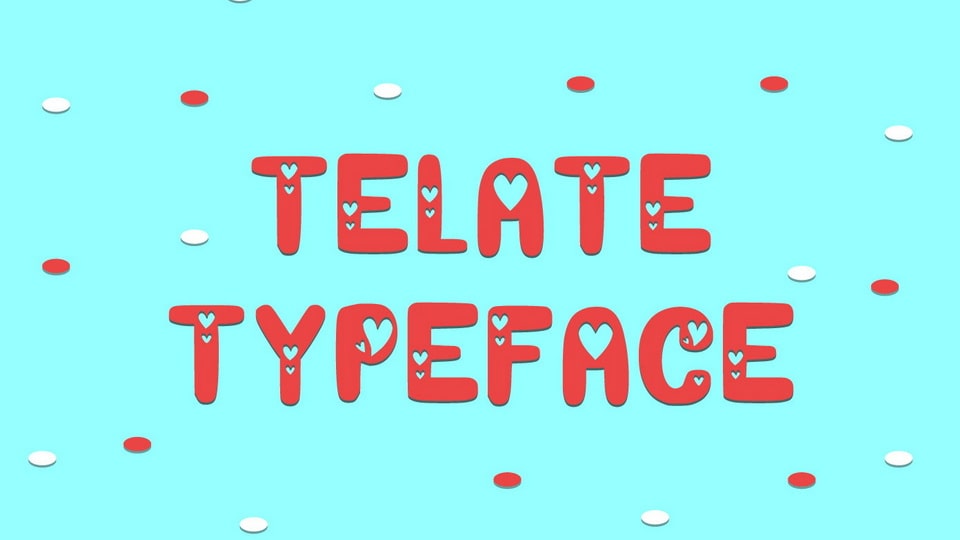
Download TeLate font, a lovely handwritten typeface with hearts shapes. Its romantic look makes TeLate font the perfect choice for Valentines Day, feminine or wedding designs.
Designer: Anggy Are